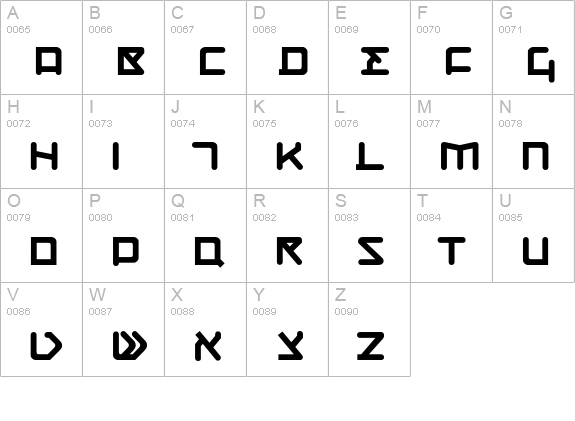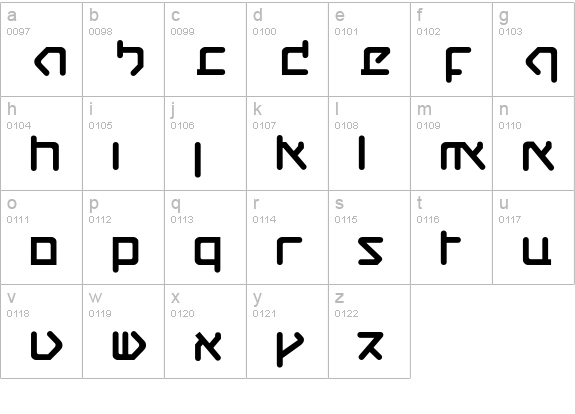
CQN-Molecular-Thermo-Regular Font Details
CQN-Molecular-Thermo-Regular is the standard, neutral variant in the CQN typeface family \xE2\x80\x94 well suited to general body text, paragraphs, and standard typographic work.
CQN-Molecular-Thermo-Regular font is a sleek and modern typeface that exudes sophistication and professionalism. With its clean lines and sharp angles, this font is perfect for conveying a sense of precision and accuracy in your designs. Whether you are working on a scientific report, technical document, or corporate branding project, CQN-Molecular-Thermo-Regular font will elevate your work to the next level. This versatile font is designed to be easily readable at any size, making it ideal for both print and digital applications. Its precise letterforms and balanced spacing ensure clarity and legibility in all contexts. The sharp edges and geometric shapes of CQN-Molecular-Thermo-Regular font give it a contemporary and cutting-edge look that is sure to make a statement in any design. Best of all, CQN-Molecular-Thermo-Regular font is completely free to download at FontsMarket.com. This means that you can access this high-quality font without breaking the bank, making it a valuable addition to your font library. Don't miss out on the opportunity to enhance your projects with the sleek and professional style of CQN-Molecular-Thermo-Regular font. Download it today and start creating stunning designs with ease.